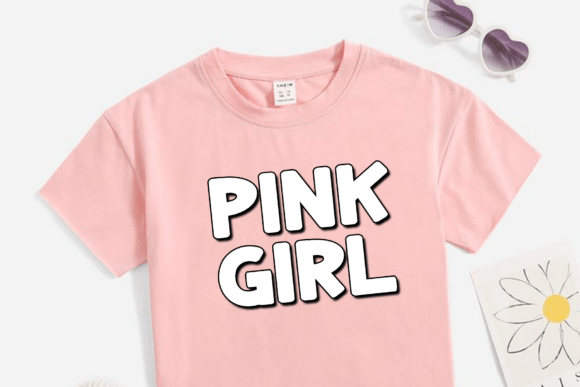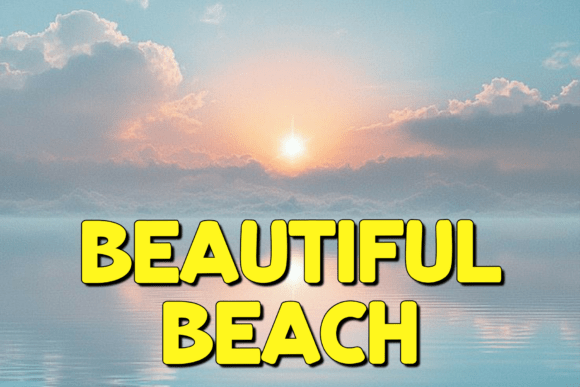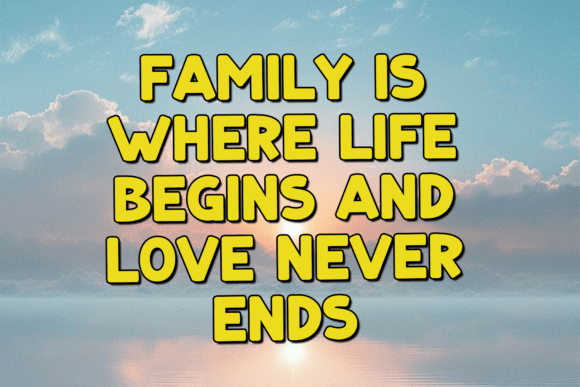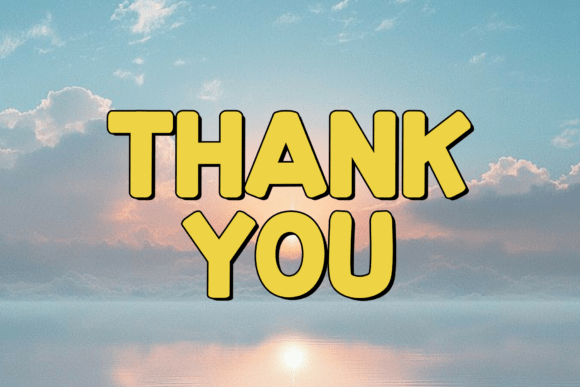
Introduction to Hello Charm1 Font
Have you ever found yourself stuck in a creative rut, struggling to bring a new project to life? You stare at your blank canvas, or in this case, your blank design document, waiting for that spark of inspiration to strike. For designers, this moment can be a daunting experience, but it’s precisely when we need the right tools to breathe new life into our work. Enter Hello Charm1 Font, a bold and playful display font that radiates energy and creativity.
With its unique combination of thick, rounded letterforms and clean geometric structure, Hello Charm1 Font strikes the perfect balance between fun and modern sophistication. Whether you’re working on a free download design resource or a high-quality print project, this versatile font adapts effortlessly to any creative project, adding a lively, approachable vibe that’s sure to engage your audience.
Key Features of Hello Charm1 Font
- Unique, playful design perfect for creative projects
- High-quality font with a transparent background, ideal for layering and blending
- Comes in a single size, but can be scaled to fit various design needs
- Features a high resolution of 300 DPI, suitable for print and digital applications
- Designed to be versatile and easy to use, making it perfect for a wide range of creative projects
Honest Review: Hello Charm1 Font
I recently had the chance to work with the Hello Charm1 Font, and I must say it’s been a delightful experience. This free download has quickly become a staple in my design arsenal, and I’m excited to share my thoughts on it.
Here are some of the things that work well: ✨
- High-quality design – The Hello Charm1 Font boasts clean, crisp lines that make it perfect for a variety of creative projects.
- Transparent background – This allows for easy layering and blending, making it a great resource for designers who like to experiment.
- Professional look – The font exudes a sense of sophistication, making it ideal for presentations, reports, and other formal documents.
However, I did encounter some limitations: ⚠️
- Limited font styles – While the Hello Charm1 Font is versatile, it’s not as extensive as some other fonts I’ve worked with.
- Not ideal for bold text – The font can become slightly distorted when used for bold text, which may affect readability.
Overall, I’m impressed with the Hello Charm1 Font. It’s a valuable design resource that’s perfect for a wide range of creative projects. With its high-quality design and transparent background, it’s sure to become a staple in your design arsenal too.
Hello Charm1 Font
The Hello Charm1 Font is a high-quality design resource that can add a touch of elegance to your creative project. With its transparent background, it can be easily customized to fit your design needs.
Tips for Getting the Most Out of Hello Charm1 Font
For the best results, use the Hello Charm1 Font in conjunction with other high-quality design resources. Experiment with different font sizes, colors, and styles to find the perfect combination for your project.
The Hello Charm1 Font is ideal for a variety of creative projects, including invitations, social media graphics, and presentations. Its transparent background and high quality make it a versatile design resource that can be used in a range of applications.